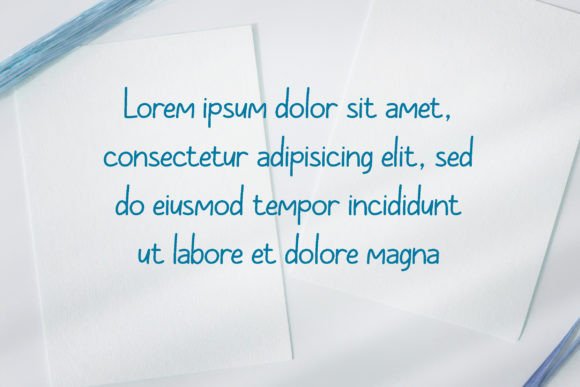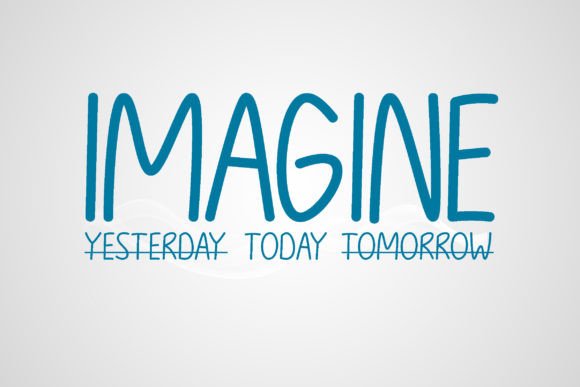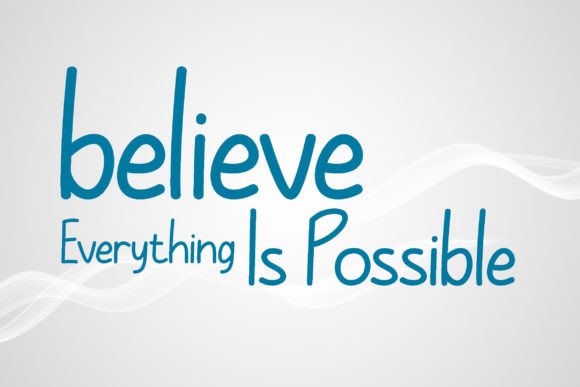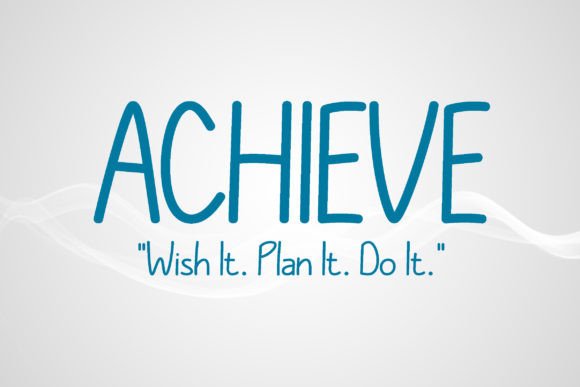
Introduction to Childhoods Font
Have you ever stumbled upon a design element that instantly sparks your creativity and transports you back to a simpler time? For me, it was a beautifully handwritten font that my grandmother used to write me love letters with. The memory of those warm, cursive words has stayed with me till date, and it’s exactly what inspired me to dive into the world of typography. Today, I’m excited to share with you a font that embodies the same charm and nostalgia – the Childhoods Font.
This stunning monoline handwritten font is a game-changer for designers looking to add a personal touch to their projects. With its beautiful, high-quality design, the Childhoods Font is perfect for writing projects, greeting cards, headings, and product packaging. Plus, its transparent background makes it a versatile design resource that can be easily incorporated into any creative project.
Key Features of Childhoods Font
- High-quality, unique font design suitable for creative projects
- Includes transparent background images for seamless integration
- Includes a wide range of characters, including uppercase and lowercase letters, numbers, and symbols
- Designed with a high resolution of 300 DPI for crisp and clear display
- Perfect for use in various design projects, such as branding, logos, and graphics
Honest Review: Childhoods Font
I recently stumbled upon the Childhoods Font and I must say, it’s been a delightful discovery. This font is a high quality design resource that’s perfect for creative projects.
- What works well: ✨ The font’s unique and playful design is reminiscent of classic children’s book illustrations. It’s perfect for projects that require a whimsical touch.
- What works well: ✨ The font comes with a transparent background, making it easy to layer and combine with other design elements.
However, there are some limitations to keep in mind: ⚠️ The font is only available in a few weights, which may limit its versatility in certain projects. Additionally, the font’s design may not be suitable for all types of projects, such as corporate or formal materials.
Overall, I’m impressed with the Childhoods Font. It’s a fun and creative design resource that’s perfect for projects that require a playful touch. While it may have some limitations, I think it’s a great addition to any designer’s toolkit.
Tips for Getting the Most Out of Childhoods Font
To get the most out of the Childhoods Font, try using it in combination with other design elements, such as images and graphics. You can also experiment with different font sizes, colors, and styles to create a unique and eye-catching design.
Common Use Cases for Childhoods Font
The Childhoods Font is a versatile design resource that can be used in a range of creative projects, including children’s party invitations, birthday cards, and educational materials. It’s also a great choice for designers looking for a high-quality, free font with a transparent background.